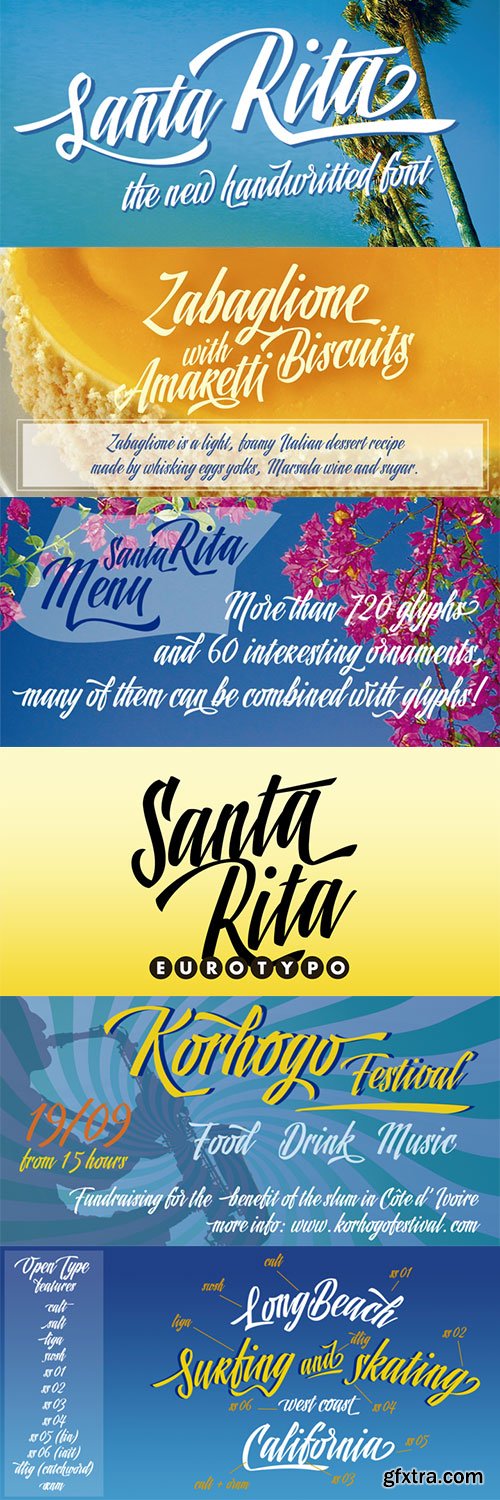
Santa Rita - NEW Casual & Modern Script $42
- Santa Rita is a new casual and modern script. This brush style typeface is the perfect blend of elegance and spontaneity. With the total number of 752 glyphs, is equipped with plenty of OpenType features. Uppercase letters can alternate between at least three different forms that can be combined with some ornaments and lowercase letters have leastways five choices more to avoid repetition. These effects include start and end forms of lowercase letters. To activate the optional glyphs you may click on Swash, Contextual or Stylistics Alternates, Standard or Discretionary Ligatures buttons in any OpenType savvy program or manually choose the characters from Glyph Palette. Also, there’s a set of 60 ornaments designed to support the font (access the ornaments through the Glyph Palette) and an important set of catchwords. The Santa Rita font might be the choice to use on creating headlines, logos & posters for branding and packaging purposes. Hope you enjoy!